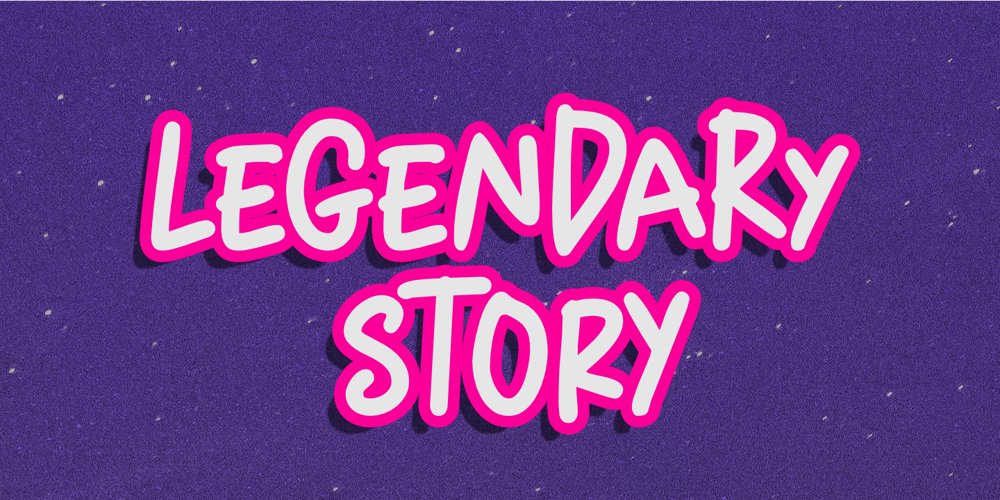
Legendary Story Font Family was designed by Aldy Sidik and published by Epiclinez. Legendary Story contains 1 styles and family package options. Legendary Story is a fun and playful handwritten font. It’s suitable for adding a personal touch to any handmade or craft project, such as adorable stationery, posters, invitations, packaging, cards, as well as logos and branding that you want to be cute and whimsical. And best of all, it’s super easy to use!So what’s included : Basic Latin Uppercase and Lowercase Numbers, symbols, and punctuations Multilingual Support. Fully accessible without additional design software Simple Installations works on PC & Mac Thank You!